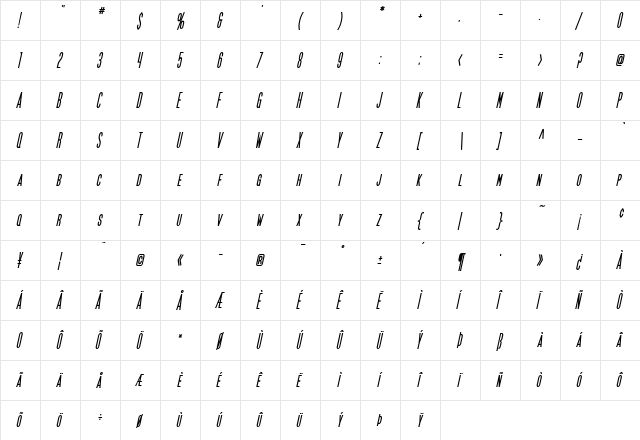
SF Movie Poster Condensed Bold Oblique Font Preview
Design Context for SF Movie Poster Condensed Typeface
SF Movie Poster Condensed is a composed and adaptable typeface that performs quietly and consistently across a wide range of design contexts. The dynamic lean of this cut emphasises speed and emphasis in any layout. The heavy weight commands attention and anchors typographic hierarchies. Its narrow stance lets it pack a punch even in space-constrained designs.